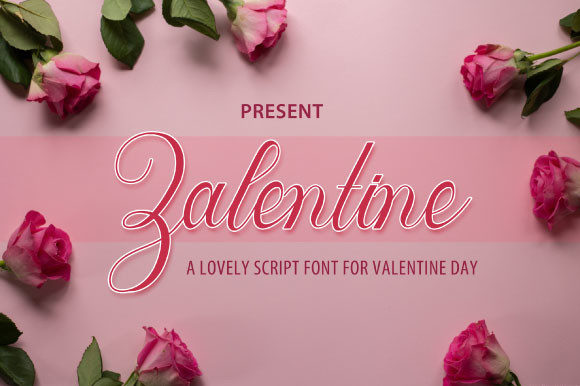
Zalentine Script: A Sweet Calligraphic Typeface for Romance
There are typefaces that simply sit on a page, and then there are typefaces that dance. Zalentine Script belongs firmly in the latter category. This is a romantic, sweet calligraphic typeface where the characters seem to sway gently along the baseline, bringing a casual yet undeniably elegant touch to any design. If you’ve been searching for a font that feels personal, warm, and distinctly human, you’ve likely just found it.
At its core, Zalentine Script is a script font designed with a very specific mood in mind: love, celebration, and heartfelt connection. The letterforms feature fluid, connected strokes that mimic the natural flow of hand-lettering. It’s not a rigid, formal calligraphy, nor is it a rough, casual handwritten font. Instead, it occupies a beautiful middle ground. The slight bounce in its baseline gives it a playful energy, while the smooth curves and consistent weight of the strokes provide a sense of sophistication. This balance is what makes it so versatile. It feels authentic, like a note written by a friend with excellent penmanship, rather than a cold, digital rendering.
Where This Romantic Typeface Truly Shines
Understanding a font’s personality is one thing; knowing where to deploy it is where the real design work happens. Zalentine Script was originally created to meet the needs of valentine card design, but its applications extend far beyond February 14th. It’s a premium font asset that can elevate a wide range of projects across print and digital mediums.
In the world of editorial design and publishing, this typeface is perfect for chapter titles in romance novels, pull quotes in lifestyle magazines, or headers on wedding blog posts. It adds an immediate emotional hook that a standard serif font or sans serif font might struggle to convey on its own. For greeting cards and wedding invitations, it’s a natural fit. Imagine it on a save-the-date card, paired with a clean, geometric sans serif font for the details—the contrast would be stunning and highly legible.
For brand identity and logo design, Zalentine Script is a compelling choice for businesses that want to communicate approachability, creativity, and care. Think of boutique bakeries, floral studios, event planners, jewelry designers, or independent cafes. Using this creative font in a logo immediately tells customers, “We value beauty and personal touch.” It’s also incredibly effective for packaging design, especially for artisanal goods, cosmetics, or any product where a handmade, luxurious feel is a key selling point.
Digital applications are just as rich. In web design, a script font like this should be used strategically—typically for headlines, hero text, or call-to-action phrases where you want to capture attention and set an emotional tone. It’s a fantastic tool for social media graphics. A quote overlay on an Instagram story, a promotional banner for a Valentine’s sale, or a Pinterest pin for a DIY project can all benefit from the warmth and personality of Zalentine Script. It stops the scroll because it feels different from the sea of standard, blocky fonts.
Making the Most of Zalentine Script: A Practical Guide
Choosing a display font like Zalentine Script is only the first step. To use it effectively, you need to consider how it interacts with other elements and how it impacts your audience’s experience.
Mastering Font Pairing is Essential. A script font should rarely, if ever, be used for long body text. Its strength is in headlines, logos, and short bursts of expressive text. The key to a successful font pairing is contrast. Pair Zalentine Script with a highly legible, simple sans serif font like Montserrat, Lato, or Open Sans for body copy. The clean lines of the sans serif will provide a perfect, stable foundation that allows the script’s personality to pop without causing visual chaos. For a more traditional or elegant feel, a classic serif font like Garamond or Baskerville can also work beautifully, creating a hierarchy that feels both sophisticated and inviting.
Test for Readability and Context. Always test your chosen typeface at the size it will be viewed. Zalentine Script is generally quite legible at larger sizes, but at very small sizes or on low-contrast backgrounds, some of its finer swashes might become difficult to read. Consider the medium. A love letter printed on textured paper will have a different feel than the same text on a sleek website. Adjust letter-spacing (tracking) slightly if needed to improve clarity, especially for all-caps settings, though this font is primarily designed for its flowing, lowercase style.
Understand the Licensing and Styles. When you invest in a commercial font like this, you’re not just buying a file; you’re gaining a design asset with professional licensing. This means you can use it for client work, products for sale, and large-scale campaigns without legal worry. Check what’s included in the package. A well-crafted script font often comes with stylistic alternates, ligatures, and swashes. These are alternate versions of letters that can be accessed in professional design software like Adobe Illustrator or Photoshop to customize the look, avoid repetitive letter shapes, and add that extra touch of bespoke elegance.
Ultimately, Zalentine Script is more than just a collection of glyphs. It’s a tool for storytelling. It’s for the designer crafting a wedding invitation suite, the small business owner developing a brand identity that feels human, the marketer creating a social media campaign that needs to connect on an emotional level, and the crafter adding a personal touch to a handmade gift. By understanding its strengths—its dance, its sweetness, its casual elegance—and pairing it thoughtfully, you can harness its power to make your projects not just seen, but felt. In the vast landscape of modern typography, that emotional resonance is what truly makes a design memorable.